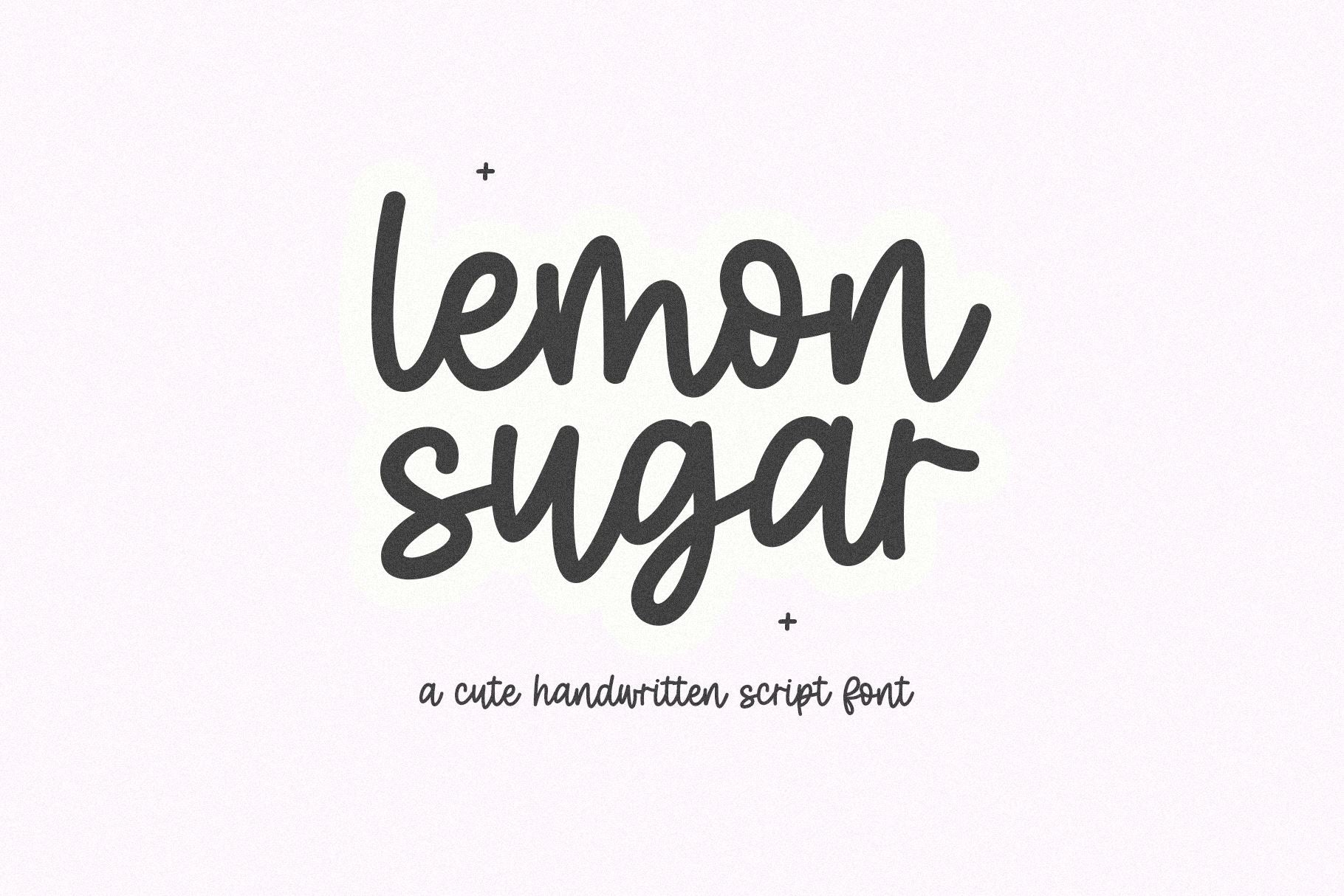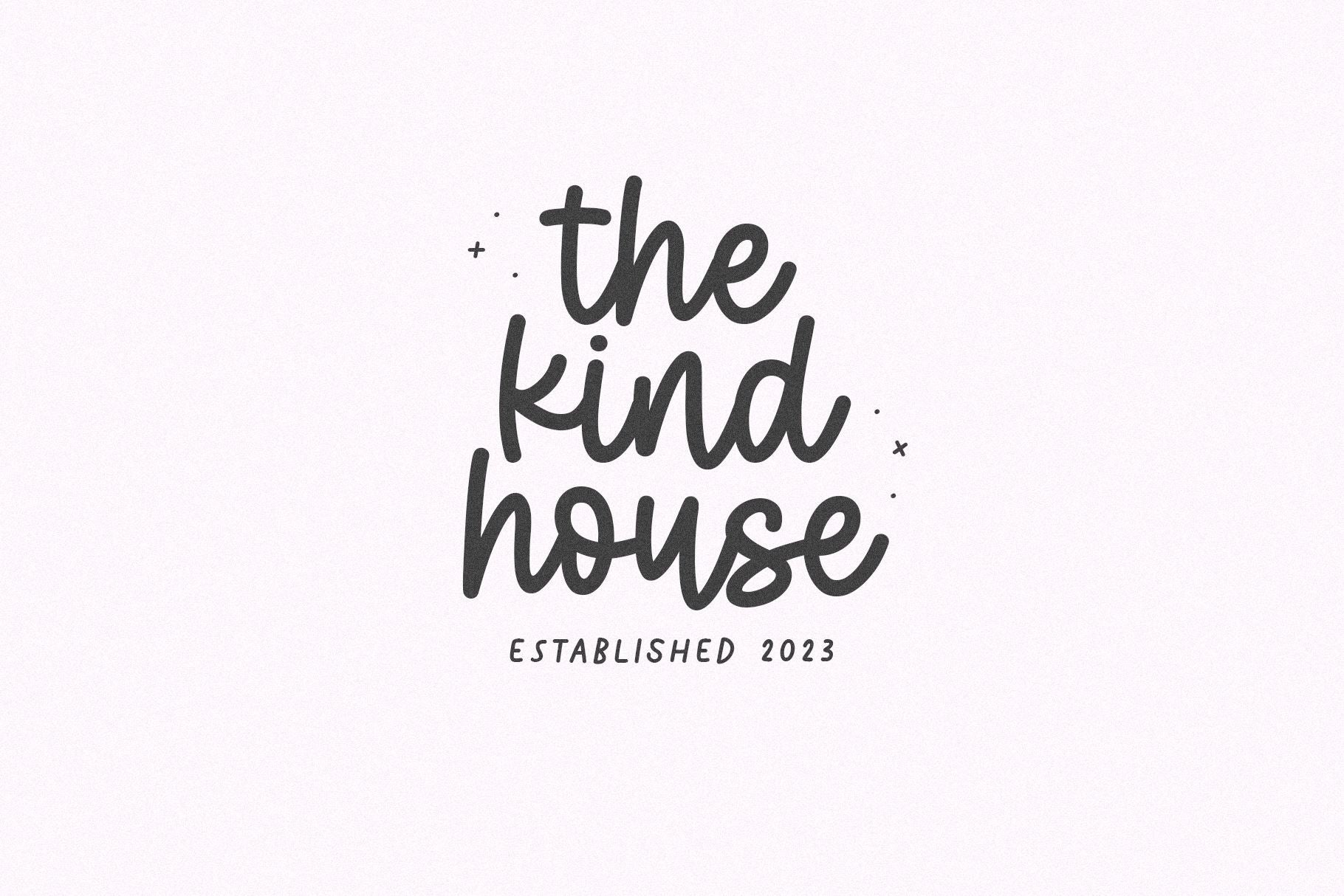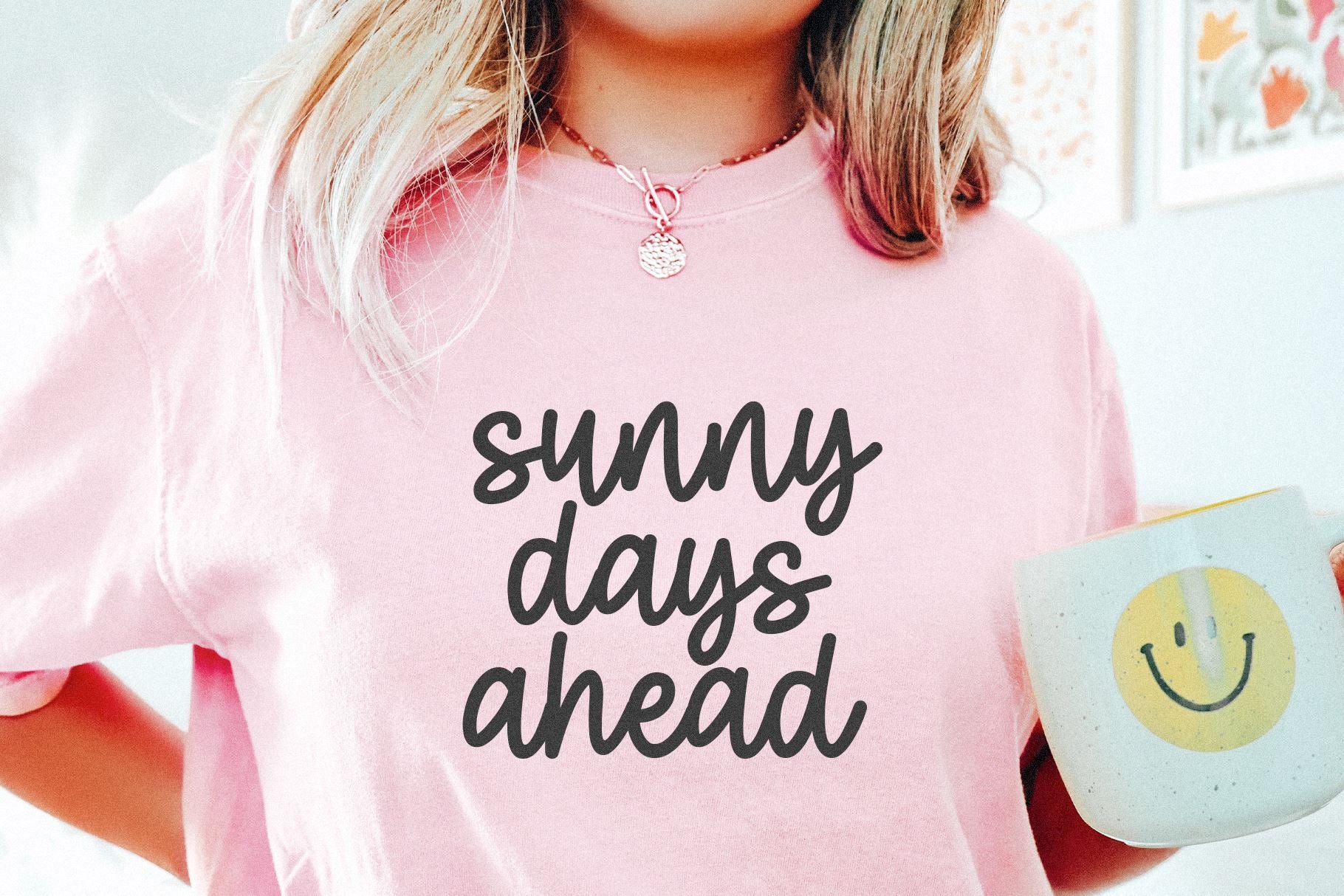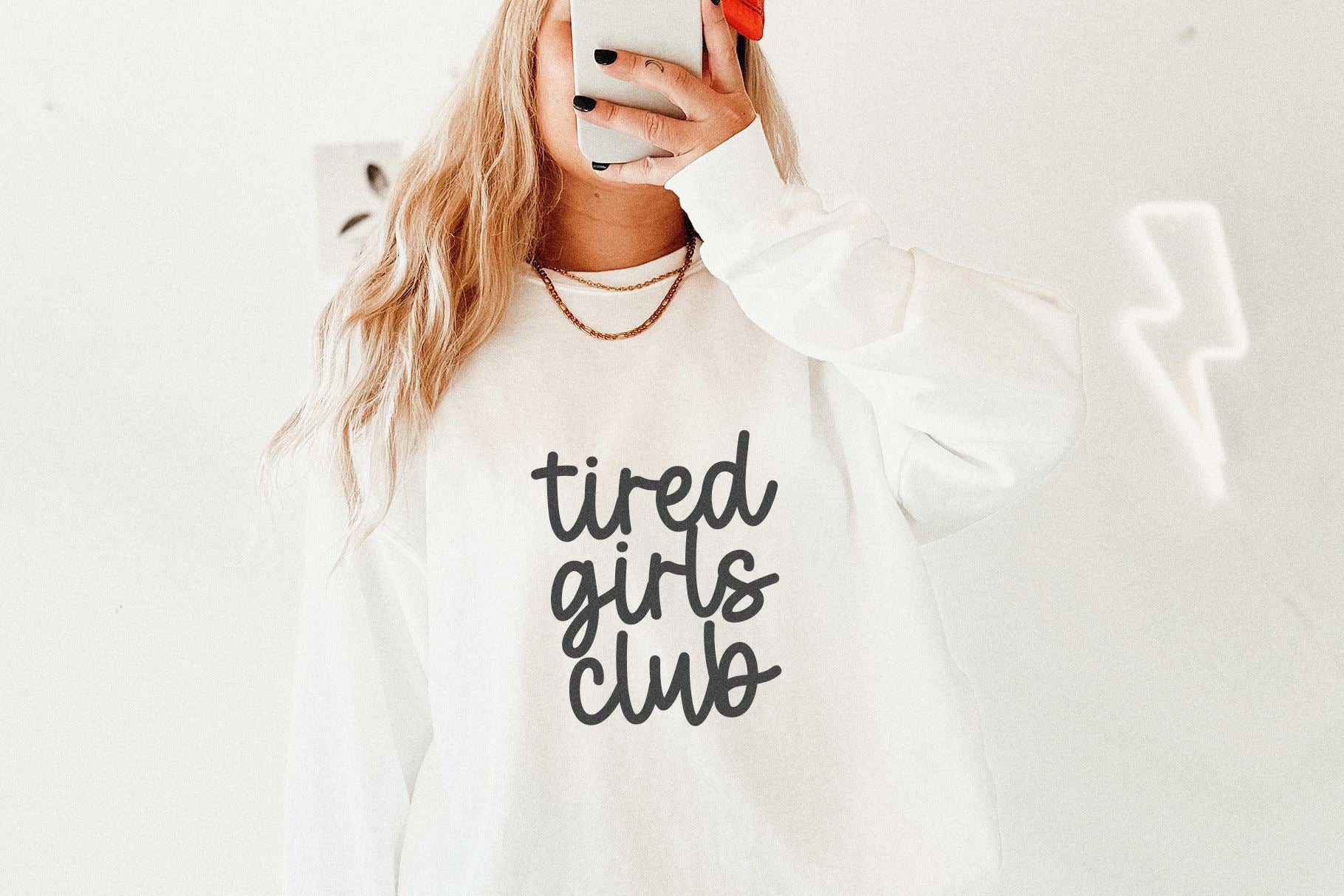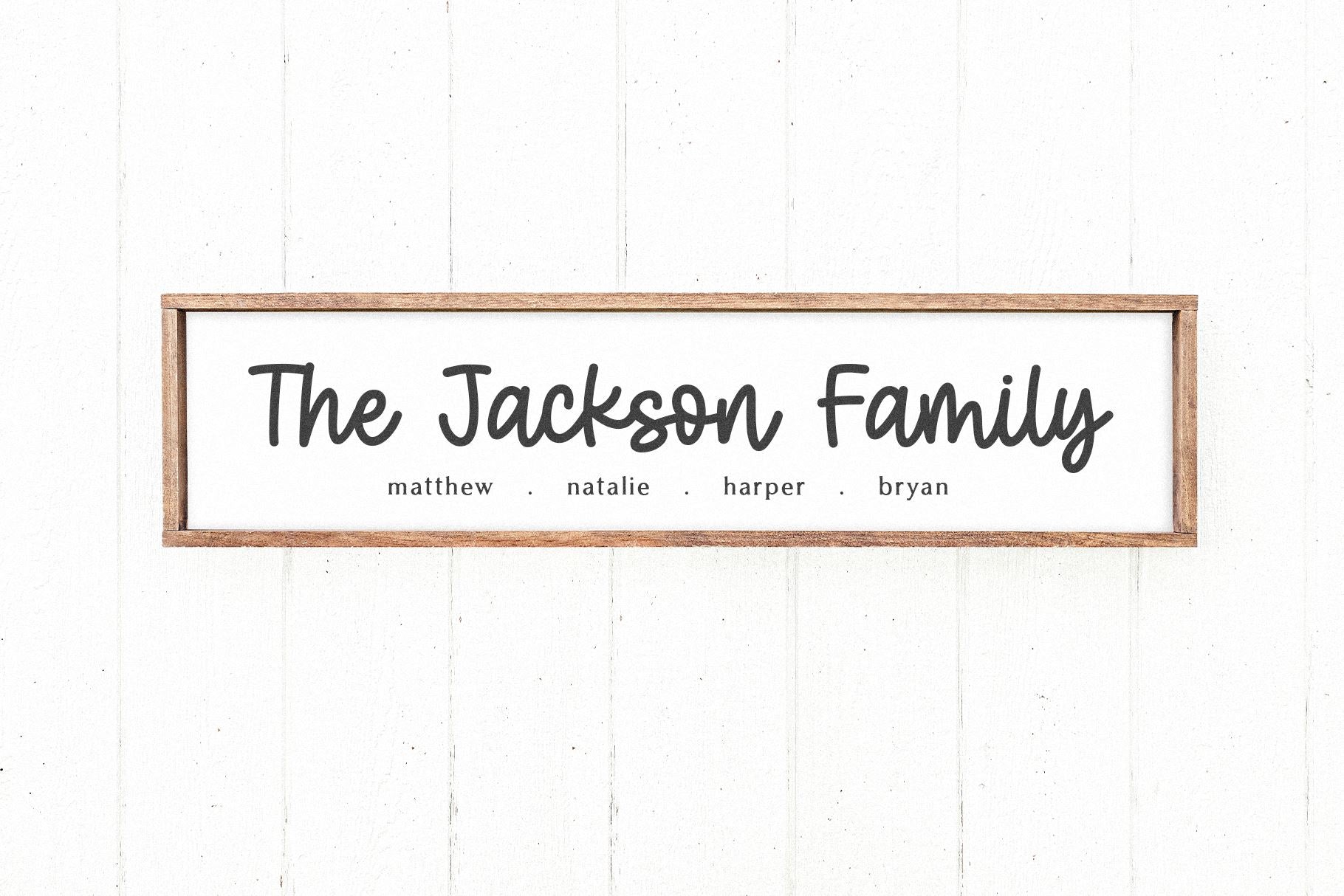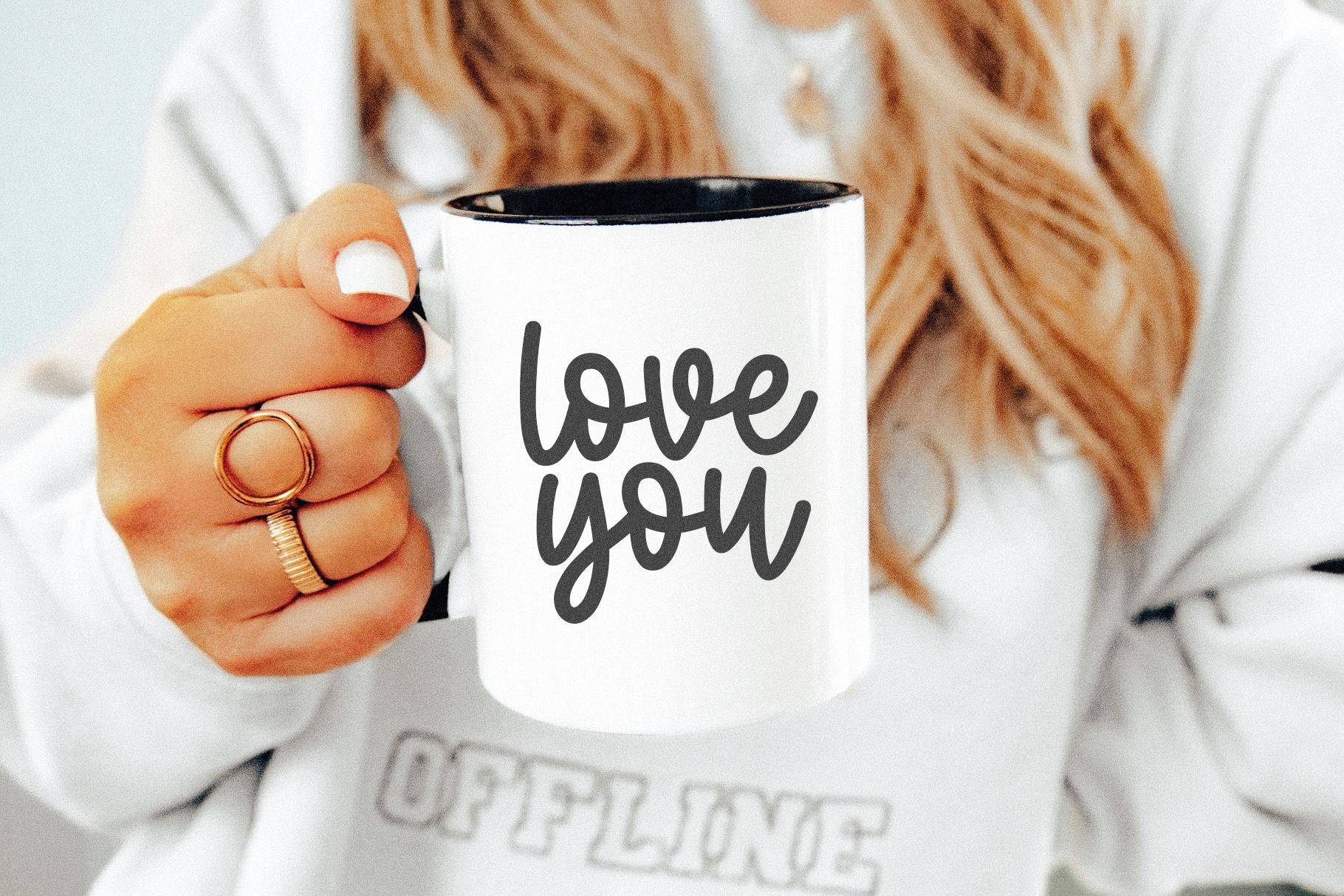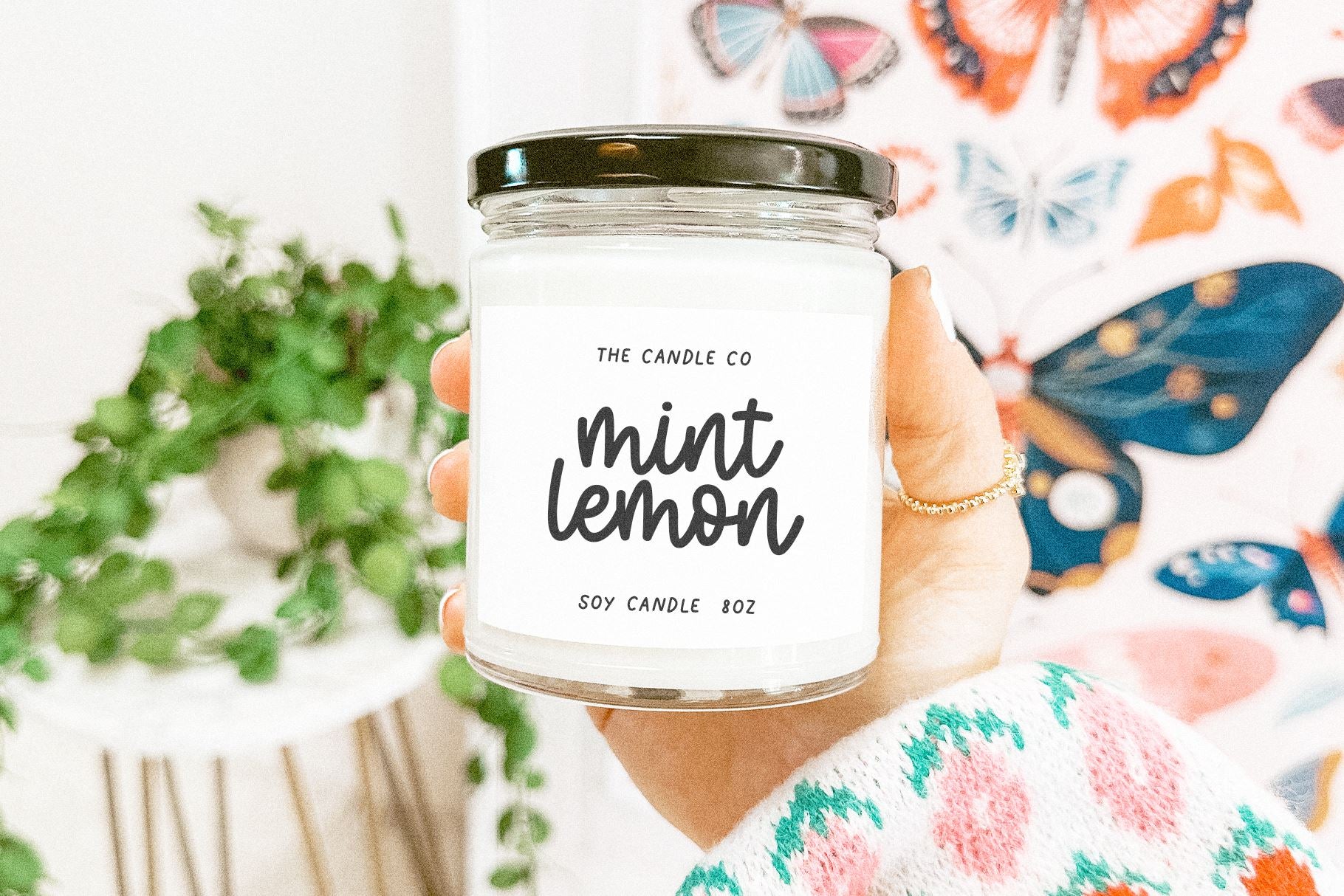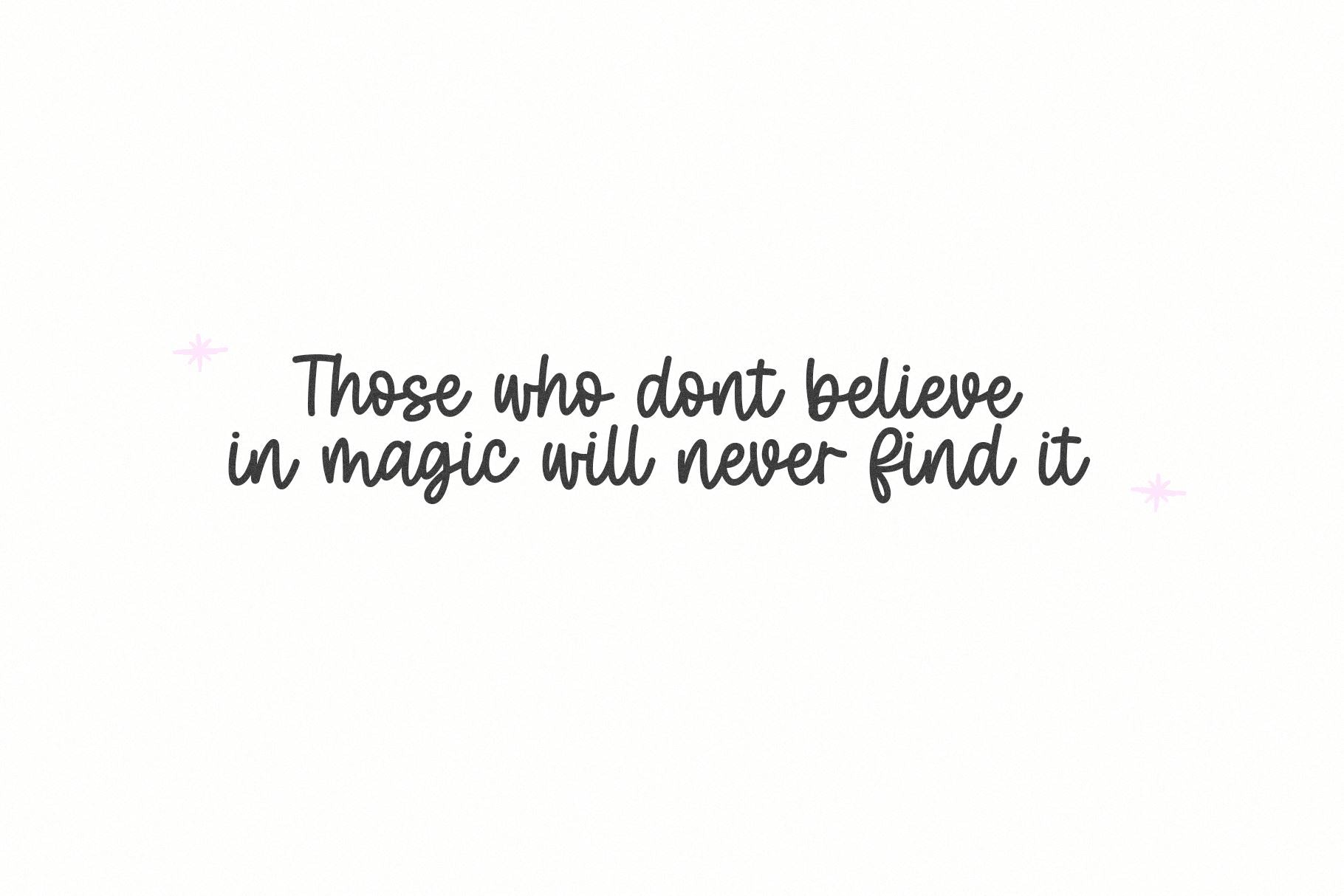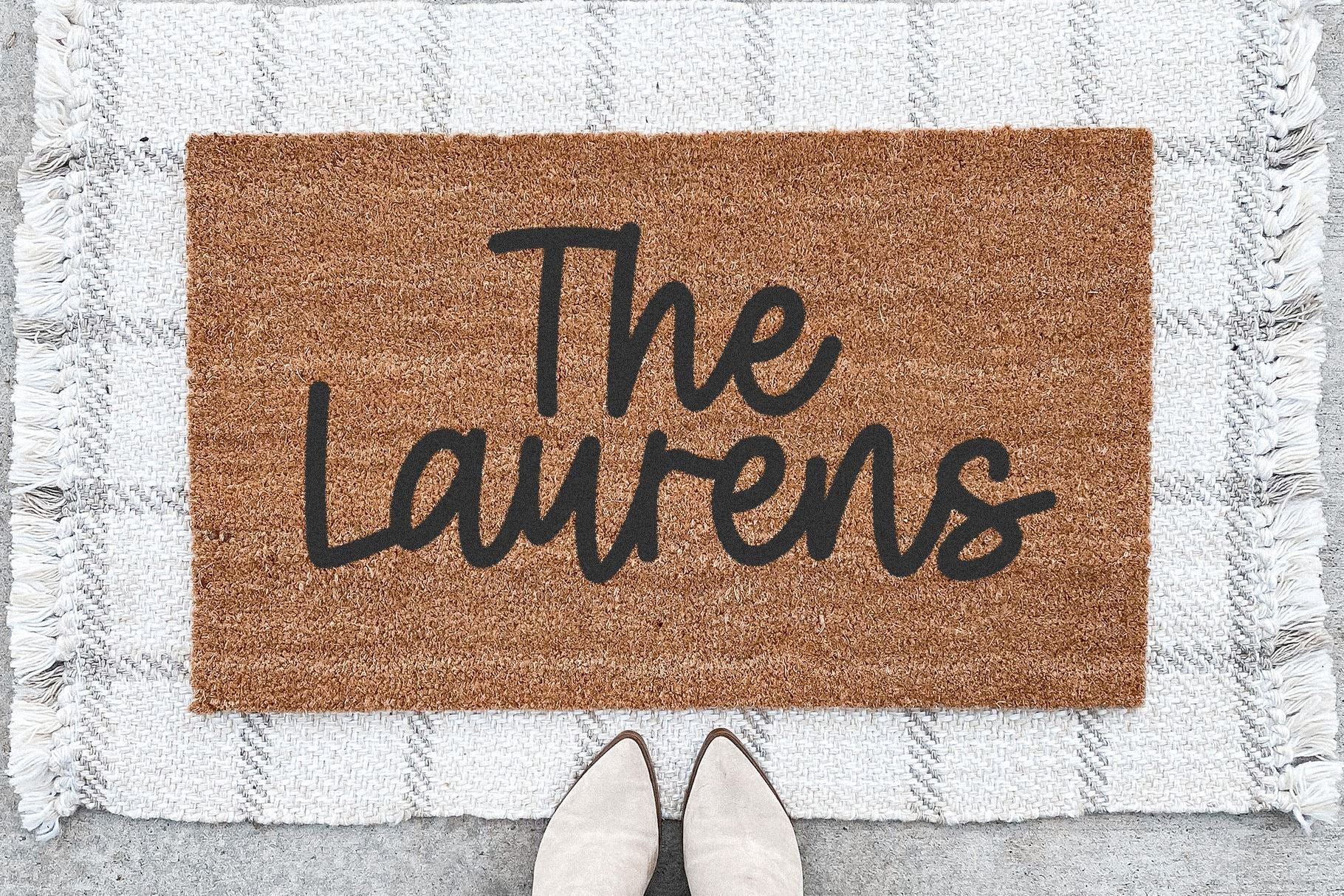
Lemon Sugar – Cute Script Font
About Lemon Sugar – Cute Script Font
Lemon Sugar is a cute handwritten script font! This font is perfect for cricut projects, Canva, logos, shirts, stickers, lasers / glowforge projects, goodnotes, teachers, quotes, procreate and more! OTF/TTF Thank you!